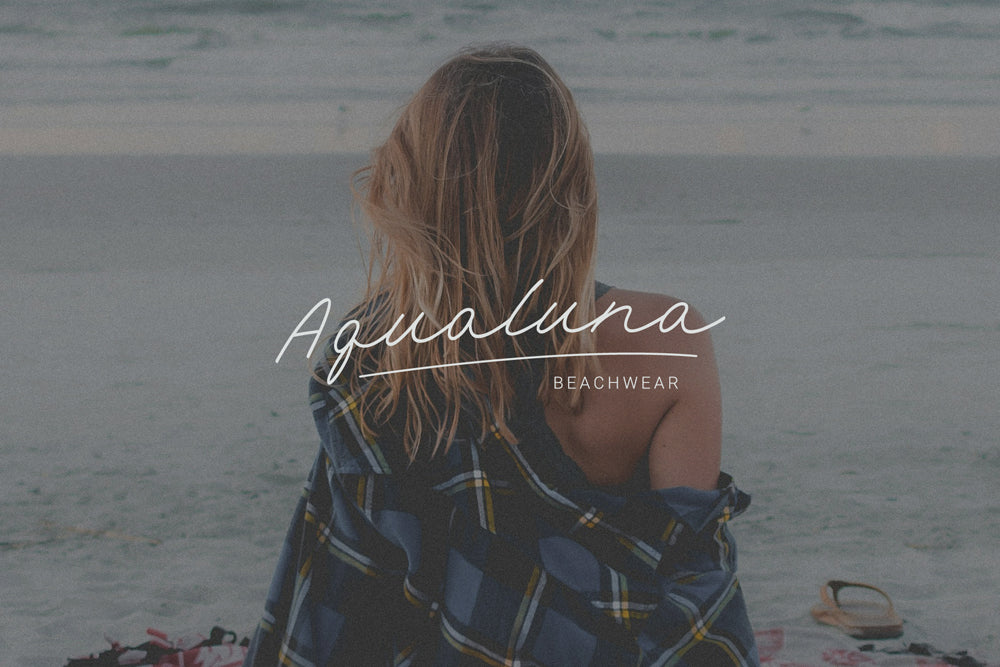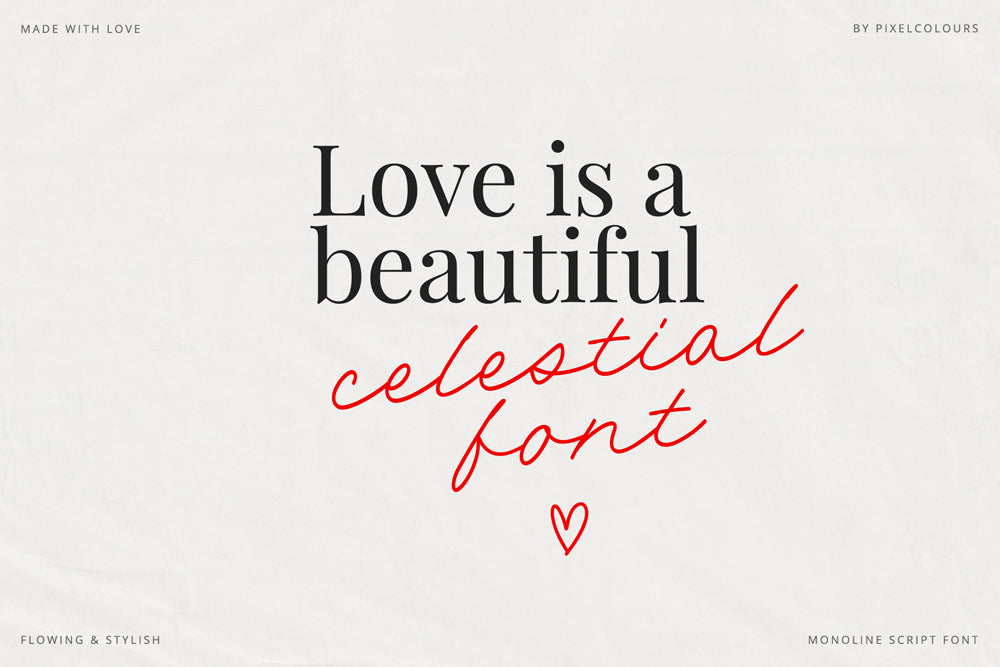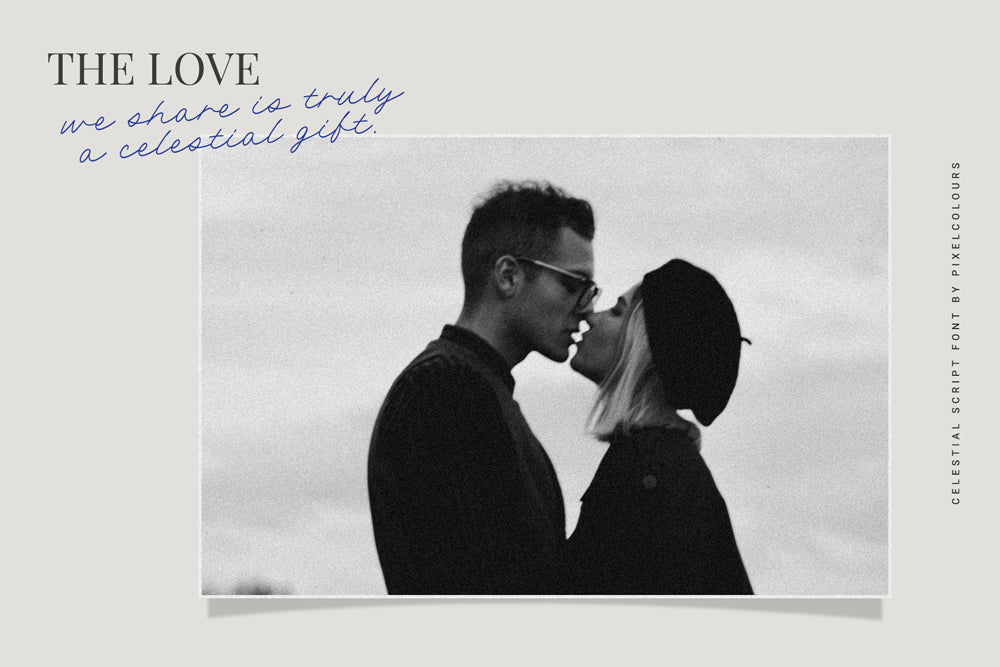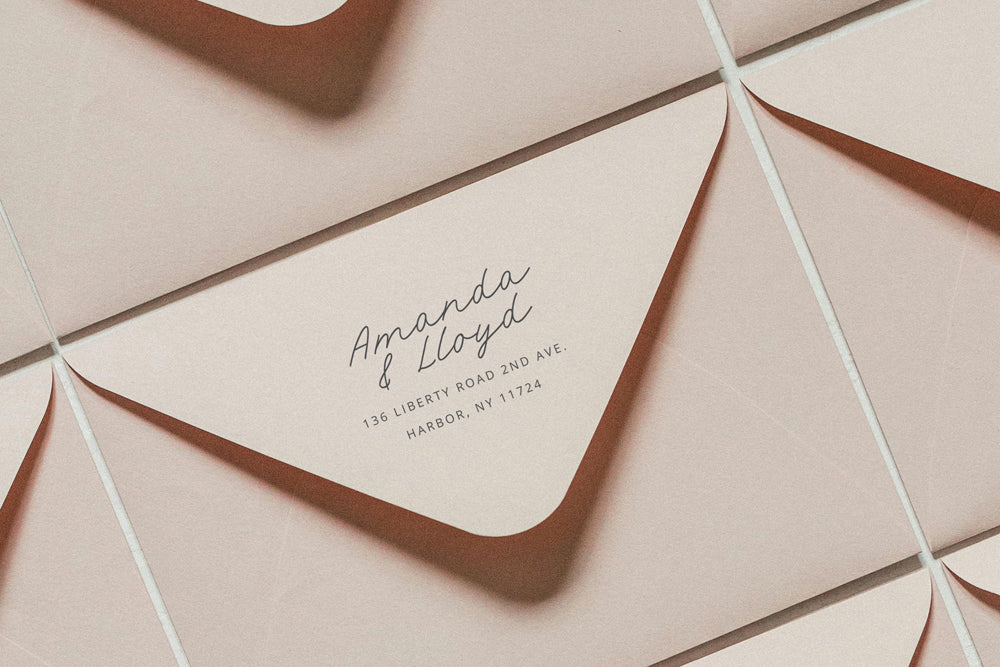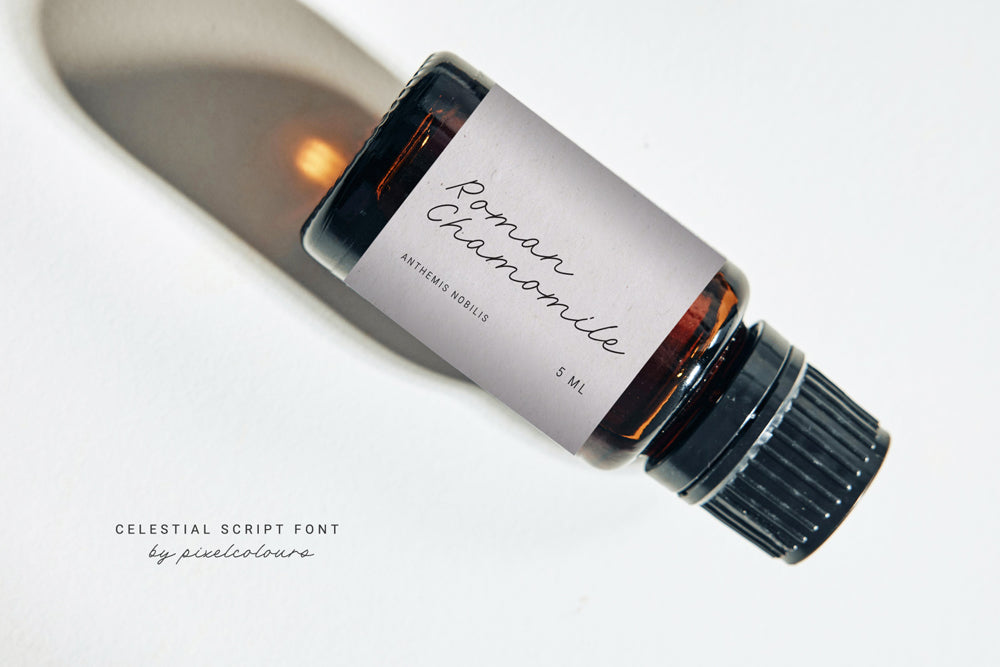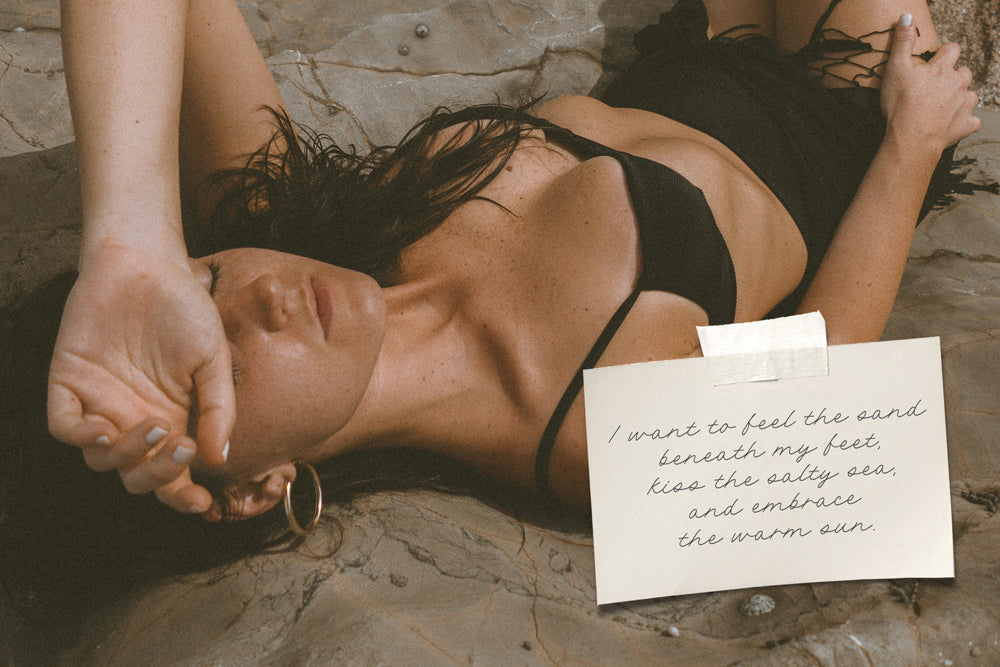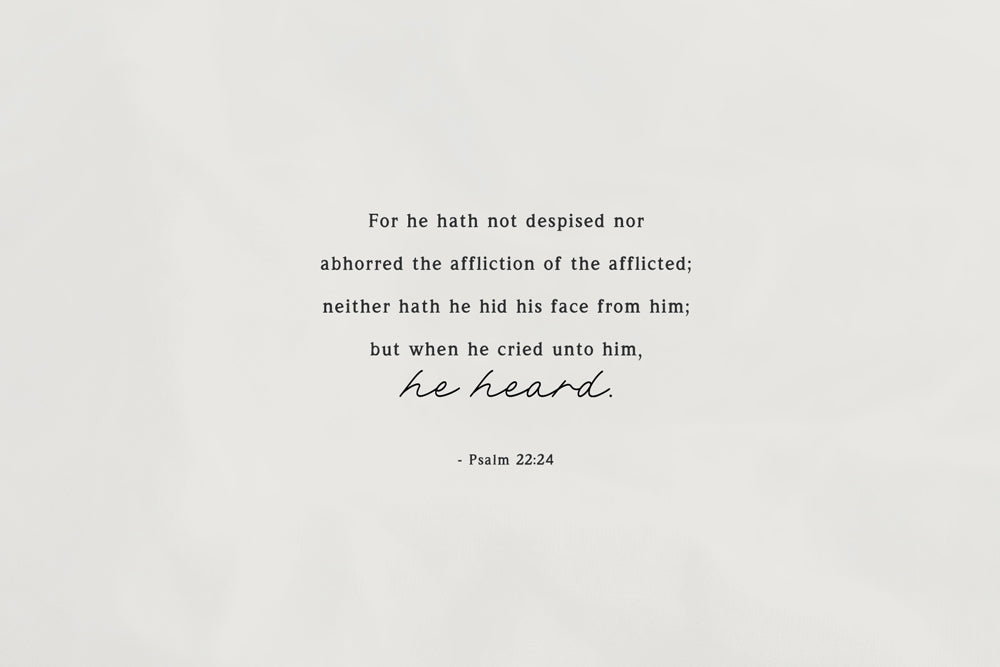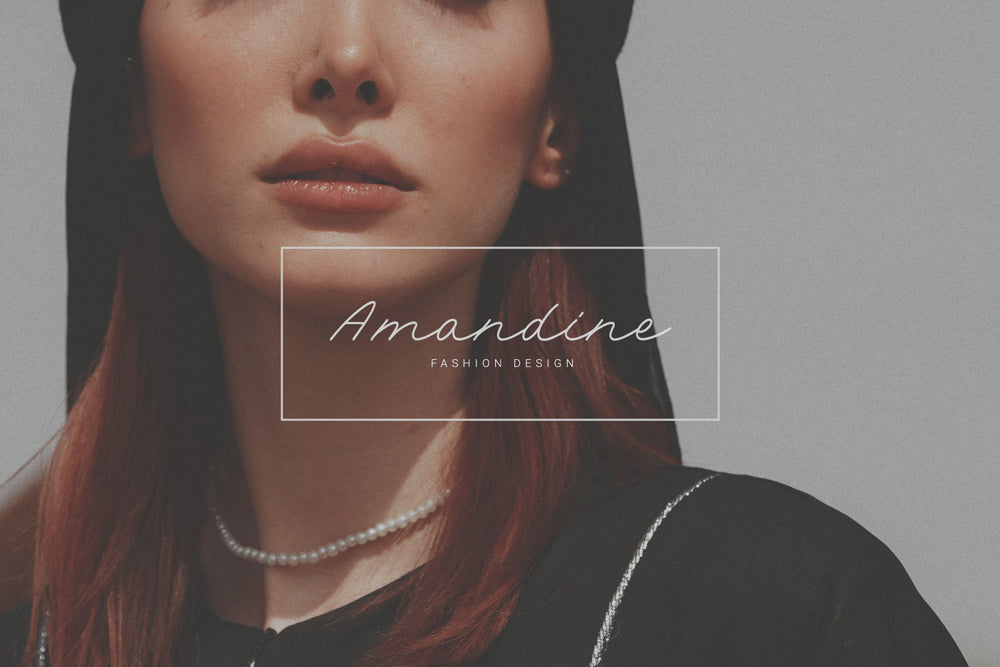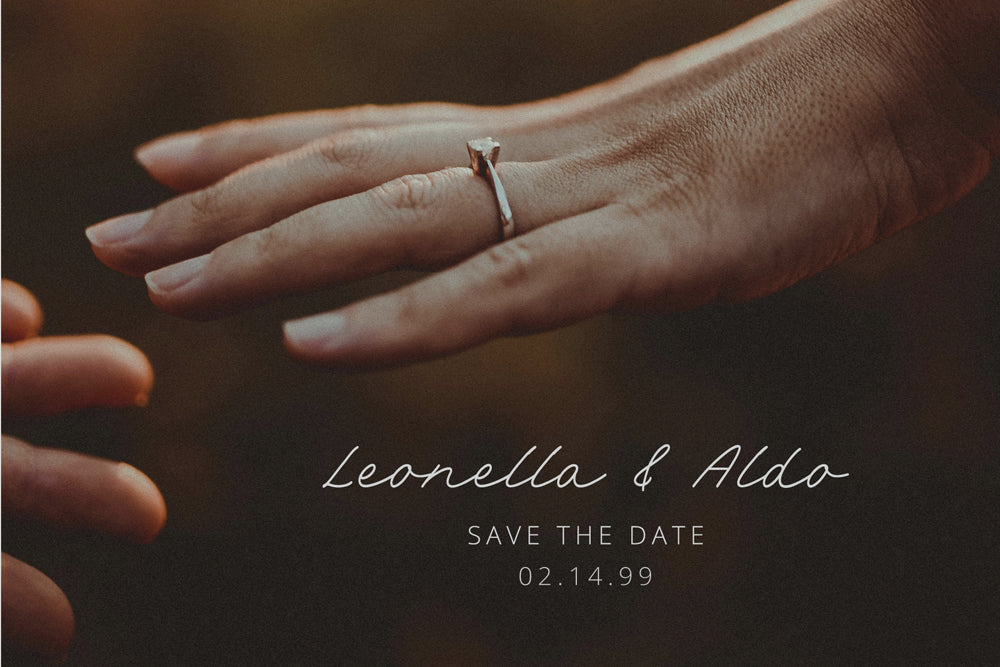
Celestial Monoline Script Font
Celestial is a graceful monoline script font that captures the charm of a handwritten note. With its flowing curves and smooth, effortless strokes, it brings a personal touch to any project. Whether you’re designing elegant stationery, social media graphics, or branding for a boutique, Celestial adds warmth and sophistication with its naturally fluid style. Perfect for creators who love a soft, handwritten aesthetic that feels both modern and timeless.